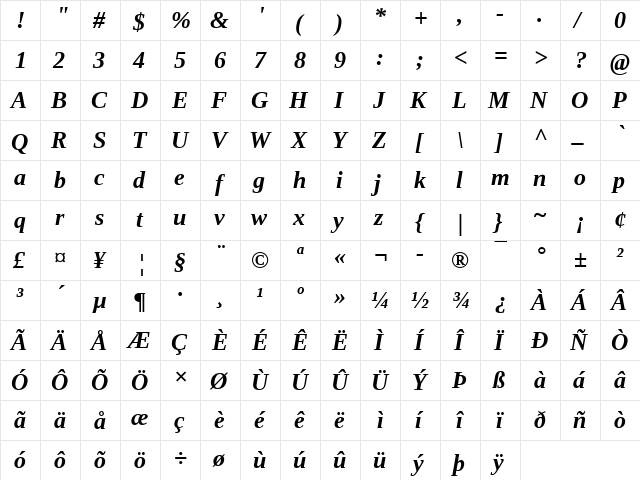
Liberation Serif Bold Italic
| Foundry | Ascender Corporation |
| Designer | Steve Matteson |
Design Context for Liberation Serif Typeface
Liberation Serif brings classic typographic sensibility to the table — its serifs and measured letterforms reflect centuries of print heritage. The dynamic lean of this cut emphasises speed and emphasis in any layout. The heavy weight commands attention and anchors typographic hierarchies.
Pro Tip: Use Liberation Serif for editorial body copy and considered headline work. Pair with a neutral sans for UI elements or captions to create a classic hierarchy.